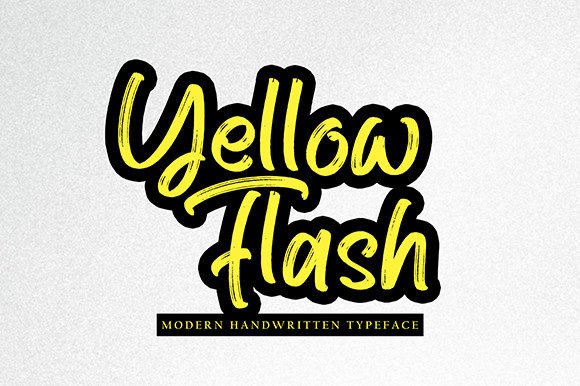
Introducing the Yellow Flash Font, an irresistible handwritten font that will ignite your creative spirit. Designed by the talented team at Pineungtype & Missinklab, this script font adds a unique and stylish touch to any project.
Prepare to be enthralled by the Yellow Flash Font's impeccable craftsmanship. Each letter is meticulously hand-drawn, capturing the essence of handwritten beauty with a contemporary twist. Whether you're crafting digital masterpieces, designing captivating presentations, or creating heartfelt greeting cards, this font is your perfect companion. Let your imagination soar as you explore the endless creative possibilities that await you.
Yellow Flash Font is not just a font; it's an experience. It's the perfect choice for those who seek individuality and desire to stand out from the crowd. Whether you're a budding artist, a seasoned designer, or simply someone who loves to express themselves creatively, this font will elevate your work to new heights.
Dive into a world of boundless creativity and let the Yellow Flash Font be your guide. Its versatility knows no bounds, adapting seamlessly to a myriad of projects. Enhance your digital designs with a touch of handwritten charm, captivate your audience with stunning presentations, and create greeting cards that leave a lasting impression. With the Yellow Flash Font, the possibilities are endless.